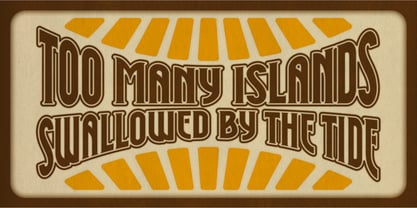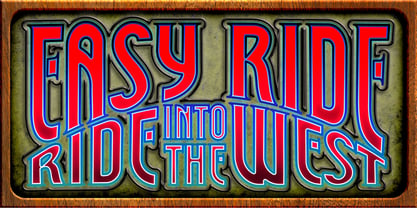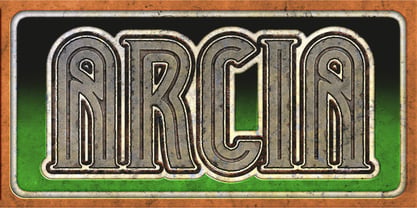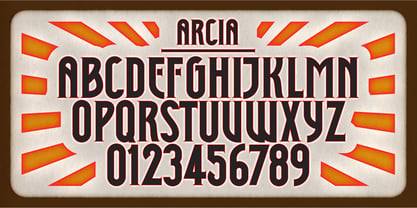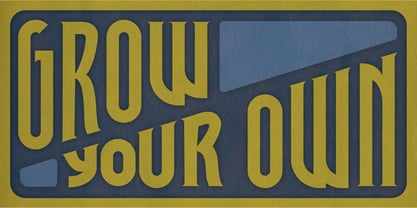
Arcia
by Ryan Corey
The Arcia Font Family was designed by Ryan Corey and published by Ryan Corey. Arcia contains 1 styles.
Arcia is a bold, flare-serif display face inspired by the feel of a classic later-era hippy band visual language. It is a bold and compressed flare-seriffed face with distinct character that imparts a unique and immediately impactful feel. Born from hand-lettering, it has been refined and polished into the expanded set of glyphs before you. A bold and distinctive display face suitable for many uses.
About Ryan Corey
An independent type foundry set up in 2009 which focuses on high quality original designs and revival typefaces. Each glyph is labored over to achieve the balance it requires to stand on its own as well as exist within the greater set as a whole. I take my craft seriously and I believe the results can speak for themselves. Each release is designed to be distinctive, functional, and built to convey meaning across print and digital spaces.